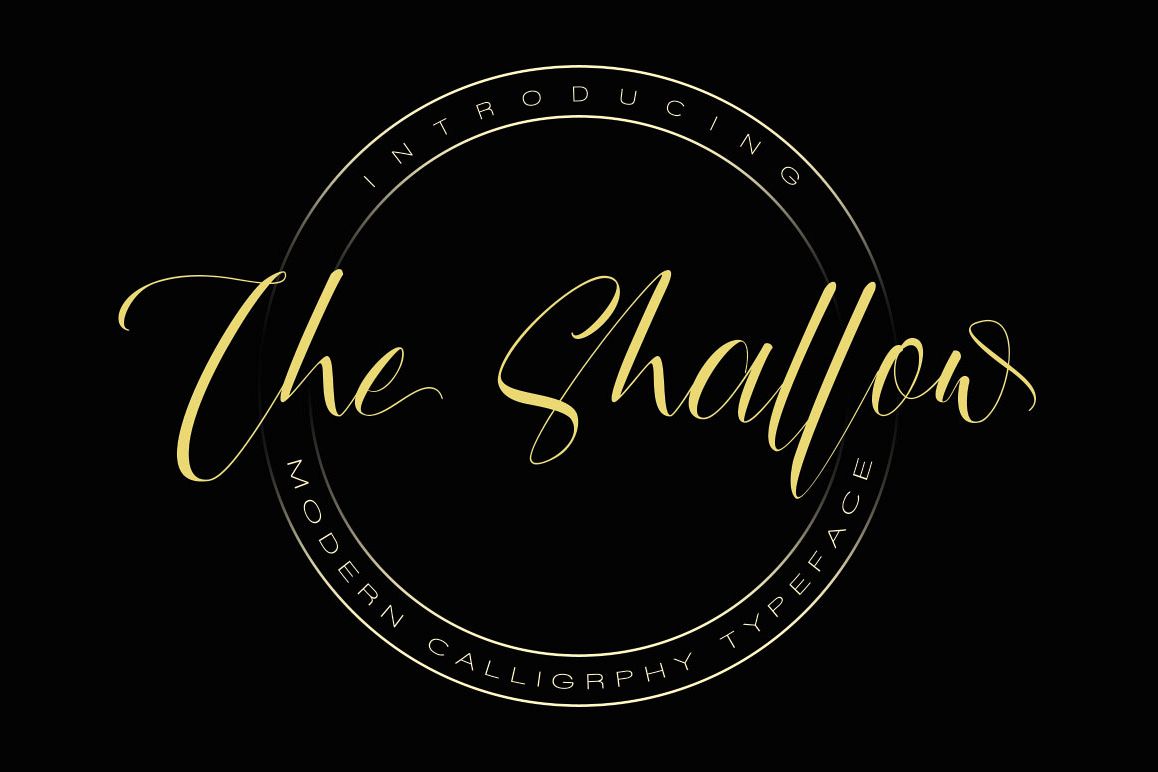
The Shallow
The Shallow Alternate
The Shallow
Introducing The Shallow! A Clean & Classy Handwriting-style with awesome Alternate characters!
The Shallow to make it look even more natural than a standard font, include Ligatures (letters custom).
Suitable for Branding, greeting cards, business card, apparel, t-shirt (your name), signature, logo, correspondence, and a variety of other purposes.